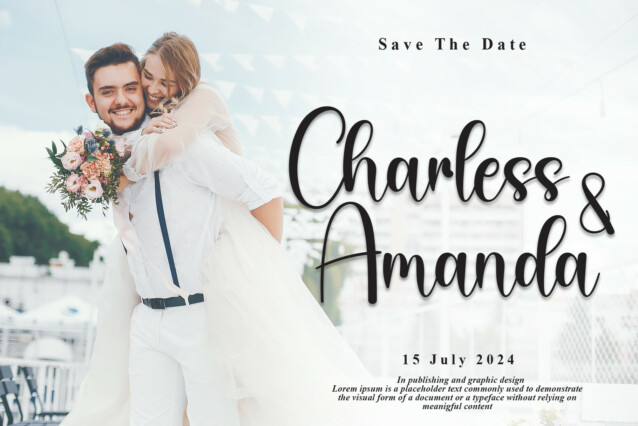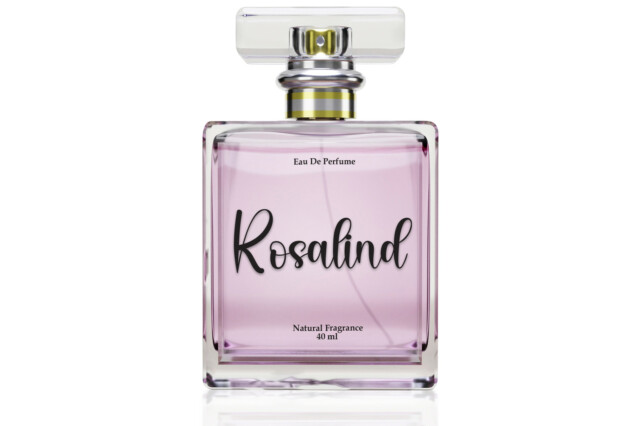
Brother Script Font
Brother Script Font is a charming handwritten font with a warm and personal touch. Its fluid strokes and friendly curves make it perfect for adding a personal, stylish flair to your text.